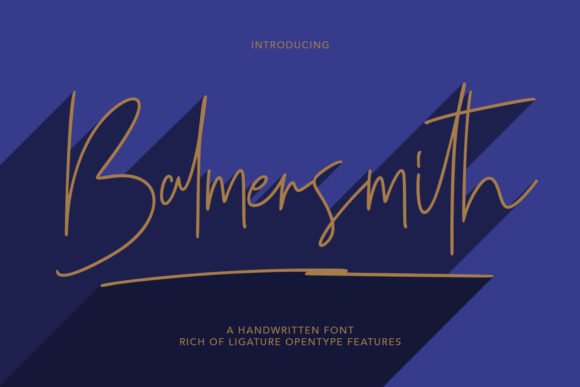
Discover the Timeless Elegance of Balmersmith Font
Enter the Balmersmith Font, a flowing handwritten font that exudes elegance and sophistication. With its unique, timeless style, this font is perfect for any project that demands a touch of refinement. Whether you’re designing a wedding invitation, a marketing campaign, or a personal blog, the Balmersmith Font is sure to make your designs stand out.
What sets the Balmersmith Font apart is its versatility and emotional resonance. It’s a font that can evoke feelings of warmth, comfort, and luxury, making it an invaluable tool for designers who want to connect with their audience on a deeper level.
Balmersmith Font Key Features
- Size: 256 glyphs, including Latin, Cyrillic, and Greek alphabets
- Unique Characteristics: Hand-drawn design, modern calligraphy feel, and subtle texture for added depth
- Font Weight: Includes 6 weights: Light, Regular, Medium, Bold, Heavy, and Black
Balmersmith Font Review
Overall, I found the Balmersmith Font to be a unique and captivating choice for designers looking to add a touch of elegance to their projects. ✨ The font’s sleek lines and refined details make it perfect for creating a sophisticated and modern aesthetic.
- ✨ High level of customization: The font comes in multiple weights, from light to bold, allowing designers to create a wide range of effects and styles.
- ✨ Excellent legibility: The font is easy to read, even at small font sizes, making it a great choice for body text or headlines.
- ✨ Unique aesthetic: The Balmersmith Font’s distinctive style sets it apart from more common fonts, adding a touch of personality to any design.
- ⚠️ Limited language support: The font may not support certain languages or character sets, which could be a problem for designers working on global projects.
- ⚠️ Not suitable for children’s content: The font’s sophisticated style may not be the best choice for children’s books or other content aimed at young readers.
Overall, I think the Balmersmith Font is a great addition to any designer’s toolkit. While it may have some limitations, its unique style and high level of customization make it a versatile and effective choice for a wide range of projects.
For best results, use Balmersmith Font for headings and titles to add a touch of elegance to your design.
Use Balmersmith Font to create unique and eye-catching typography in your designs.
Use Balmersmith Font to add a touch of sophistication to your presentations and documents.
Balmersmith Font is ideal for:
- Editorial and publishing design.
Remember to use Balmersmith Font in moderation to avoid overwhelming your design with too much text.